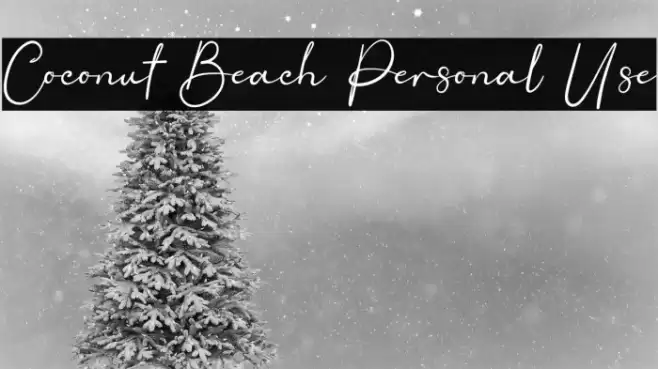
Coconut Beach Personal Use Font
Coconut Beach Personal Use Description
This font features a flowing, cursive style that exudes a relaxed and casual vibe. The letters are elegantly connected, with smooth curves and a handwritten appearance. The uppercase letters are slightly more elaborate, with some featuring loops and swirls, while the lowercase letters maintain a consistent, flowing script. The overall look is both stylish and approachable, making it suitable for a variety of creative projects. The font's design is reminiscent of handwriting, offering a personal touch that can enhance invitations, greeting cards, and other personal communications.
A flowing, cursive font with a relaxed, handwritten style from Script fonts.
by twinletter - Weight: Personal Use
- Proposed Projects: Ideal for wedding invitations, greeting cards, personal branding, and creative projects that require a personal touch.
- Overall Style: Casual, Elegant
- Use Case: Logos, Invitations, Personal communications